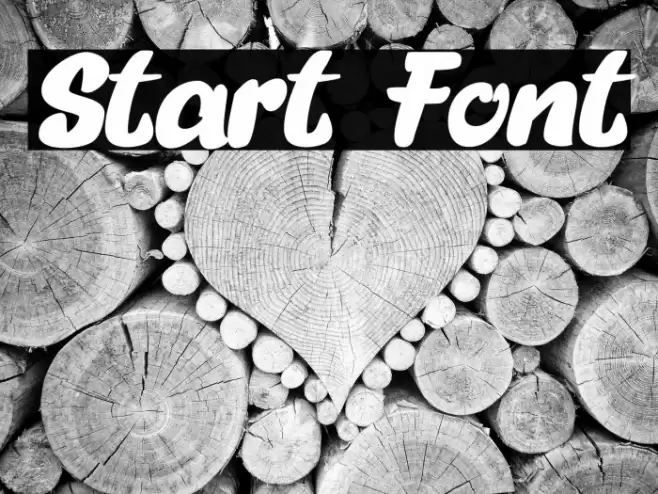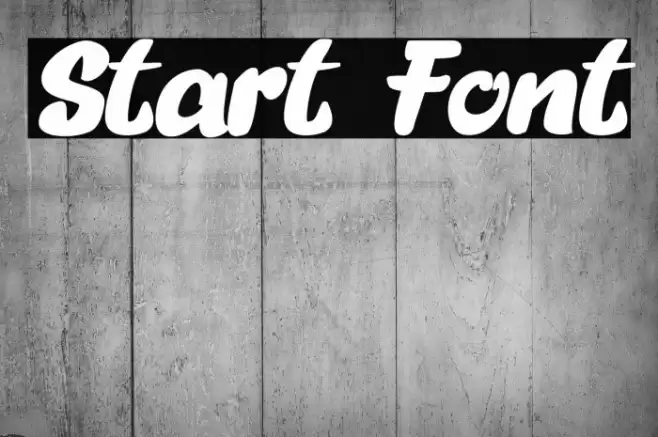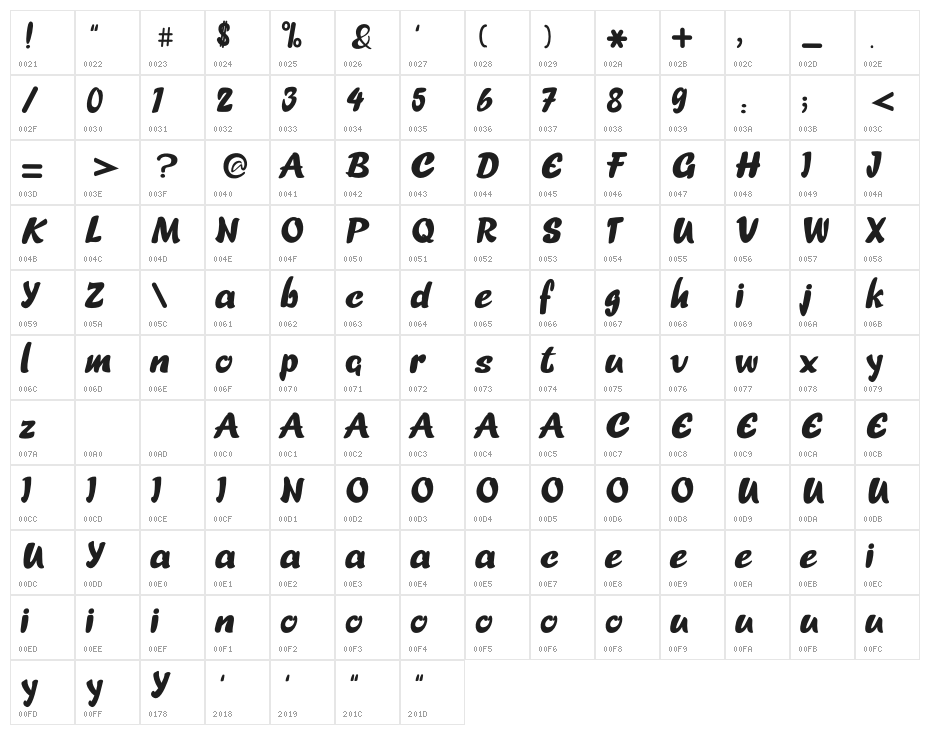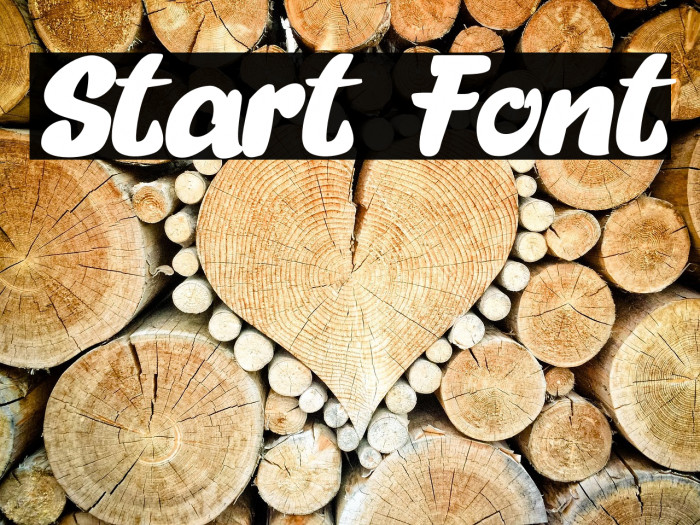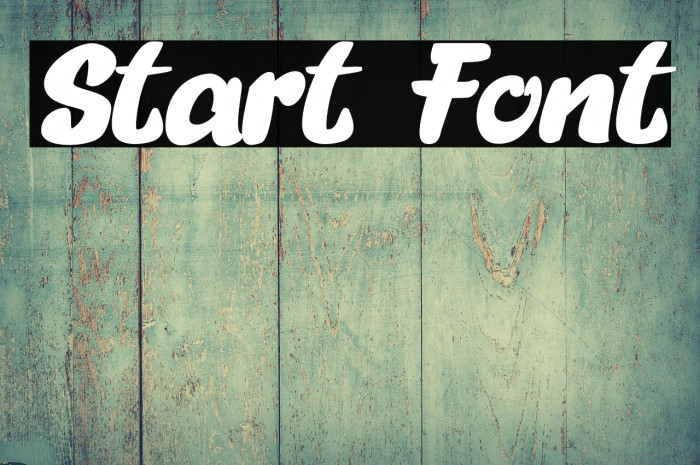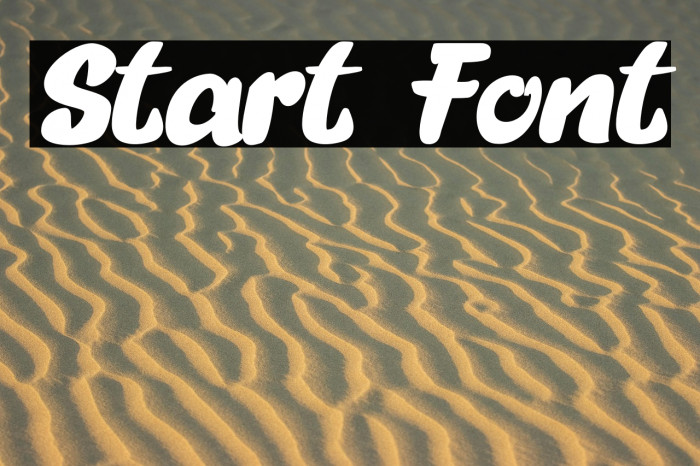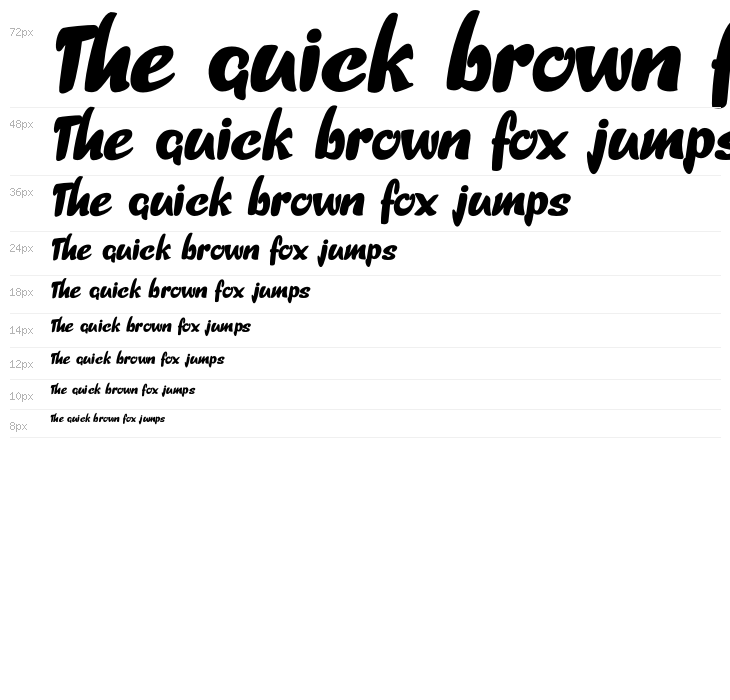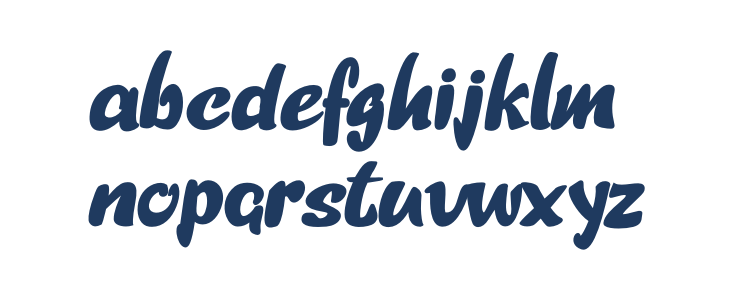
Start Font
Start Description
This font features a bold and expressive script style with a playful and dynamic appearance. The characters are slightly slanted, giving a sense of movement and fluidity. The strokes are thick and rounded, contributing to a friendly and approachable look. The uppercase letters are prominent and well-defined, while the lowercase letters maintain a consistent flow. Numbers and special characters are crafted with the same boldness, ensuring uniformity across all elements. The overall design is suitable for projects that require a lively and energetic touch.
A bold, playful script font with dynamic, rounded strokes from Uncategorized fonts.
- Proposed Projects: Ideal for branding, posters, invitations, and any creative project that requires a lively and energetic typeface.